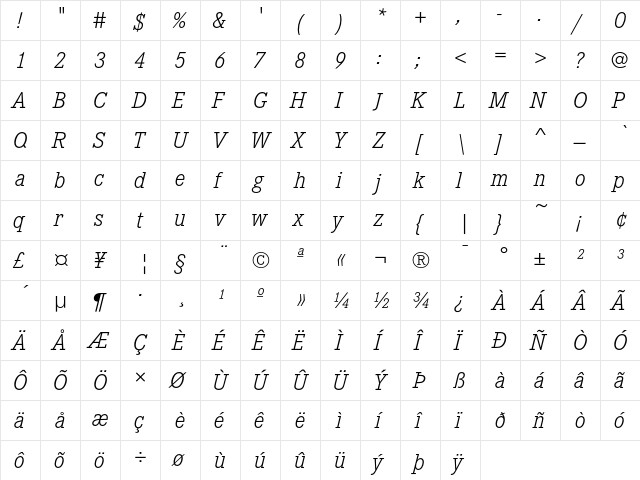
Corporate E Light Italic Font Preview
Design Context for Corporate E Typeface
Corporate E takes a measured approach to typography — its balanced proportions and neutral character make it a reliable workhorse for both digital and print work. Its italic angle brings a sense of urgency and motion to the letterforms. Its slender proportions lend an understated elegance to any composition.
Pro Tip: Try Corporate E for annotation and caption copy alongside an upright companion — the contrast in angle creates a dynamic but ordered typographic system.